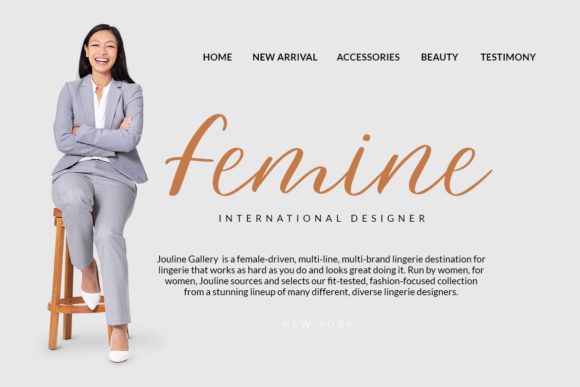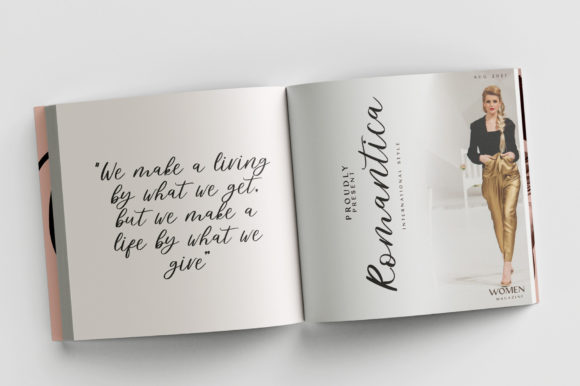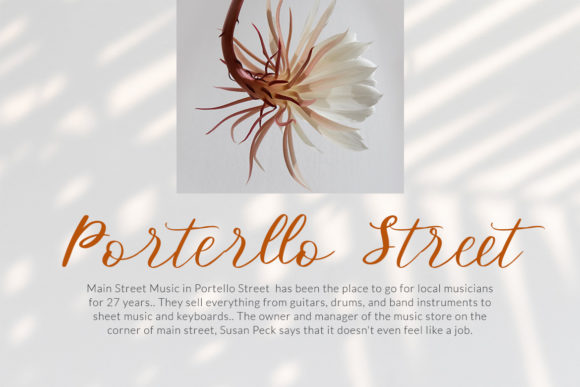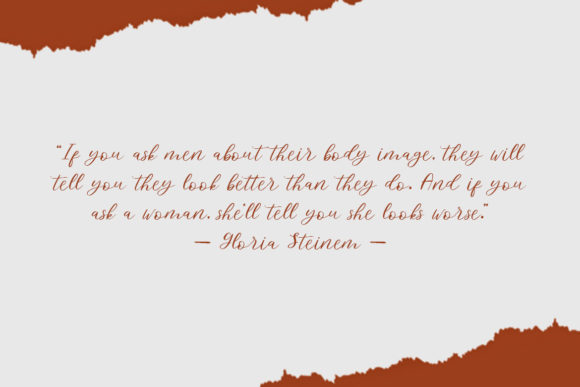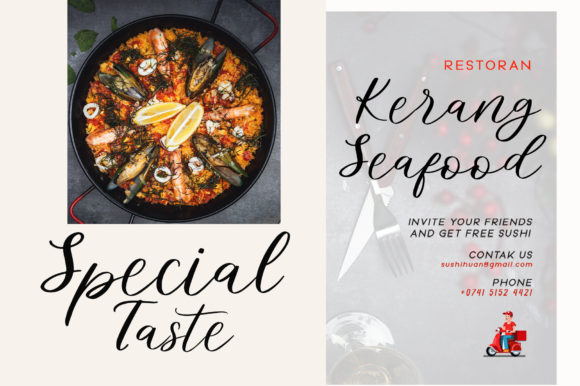
Bready Font: The Perfect Choice for Delicate and Gorgeous Designs
Are you a designer or crafter looking for a font that adds a touch of elegance and sophistication to your designs? Look no further than the Bready Font! This beautiful font is perfect for creating stunning wedding invitations, thank you cards, quotes, greeting cards, logos, business cards, and more.
A Delicate and Gorgeous Font
Bready Font feels equally gorgeous and delicate, making it the perfect choice for designs that require a customized touch. Its elegant and refined appearance is sure to impress, and its versatility makes it suitable for a wide range of design projects. Whether you’re creating a romantic wedding invitation or a professional business card, Bready Font is the perfect choice.
Ideal for Various Design Projects
Bready Font is a versatile font that can be used for various design projects, including:
- Wedding invitations: Create stunning wedding invitations that set the tone for the big day.
- Thank you cards: Express your gratitude with beautiful and elegant thank you cards.
- Quotes: Add a touch of elegance to your quotes and make them stand out.
- Greeting cards: Create beautiful greeting cards for special occasions such as birthdays, anniversaries, and holidays.
- Logos: Use Bready Font to create a professional and elegant logo for your business.
- Business cards: Create a lasting impression with beautiful and professional business cards.
One of the best features of Bready Font is that it is PUA (Private Use Area) encoded. This means that you can access all of the glyphs and swashes with ease, giving you more creative freedom and flexibility. With PUA encoding, you can easily access and use the font’s built-in features, such as:
- Glyphs: Access a wide range of glyphs, including letters, numbers, and symbols.
- Swashes: Add a touch of elegance to your designs with beautiful swashes.
Why Choose Bready Font?
So, why choose Bready Font for your design projects? Here are just a few reasons:
- Elegant and refined appearance: Bready Font has a beautiful and delicate appearance that is sure to impress.
- Versatility: Bready Font is suitable for a wide range of design projects, from wedding invitations to business cards.
- Easy to use: Bready Font is PUA encoded, making it easy to access and use all of its features.
- Customizable: With Bready Font, you can add a customized touch to your designs, making them stand out from the crowd.
In conclusion, Bready Font is a beautiful and versatile font that is perfect for designers and crafters looking to add a touch of elegance and sophistication to their designs. With its delicate and gorgeous appearance, PUA encoding, and ease of use, Bready Font is the perfect choice for a wide range of design projects. Whether you’re creating wedding invitations, business cards, or quotes, Bready Font is sure to impress.